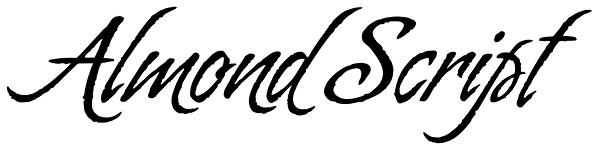
Almond Script
With ascenders and descenders gone tall and wind-bent just the right way and capitals of enough weathered artistry to touch off waves of mystique and experience, Almond Script is calligraphy gone rusty and textured like only Angel Koziupa and...